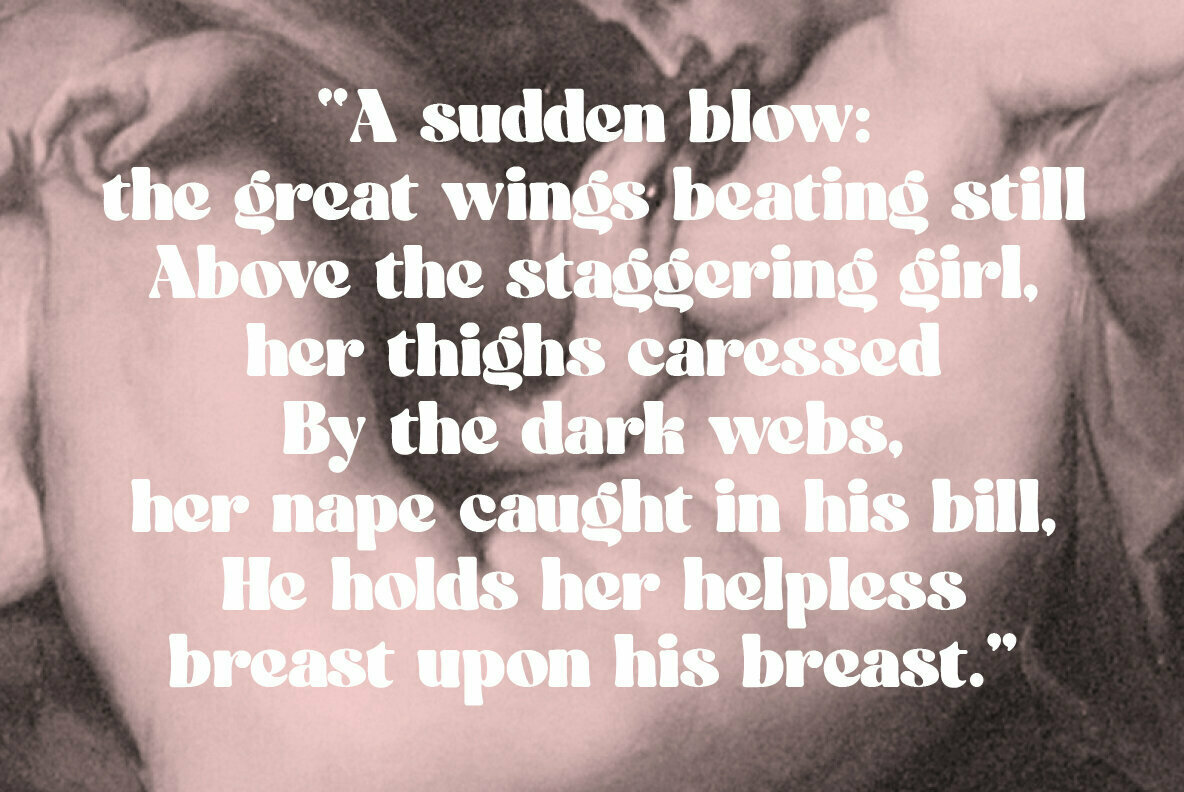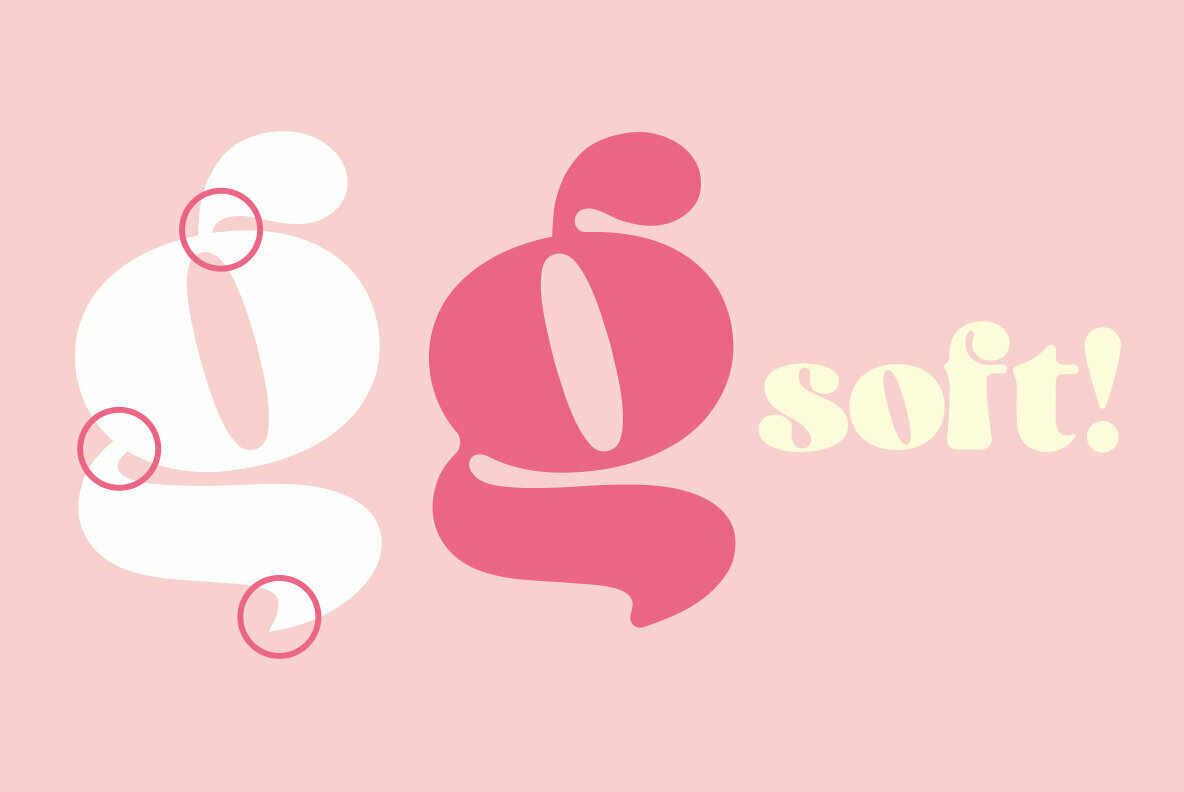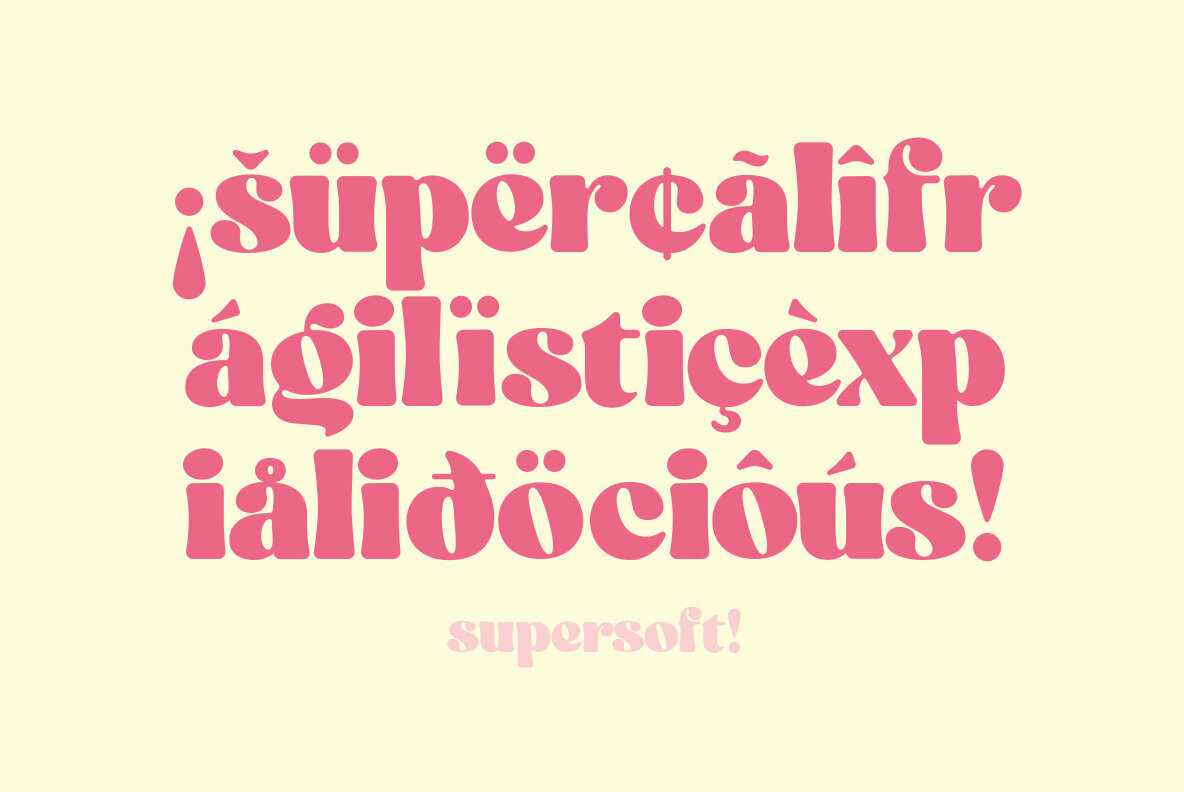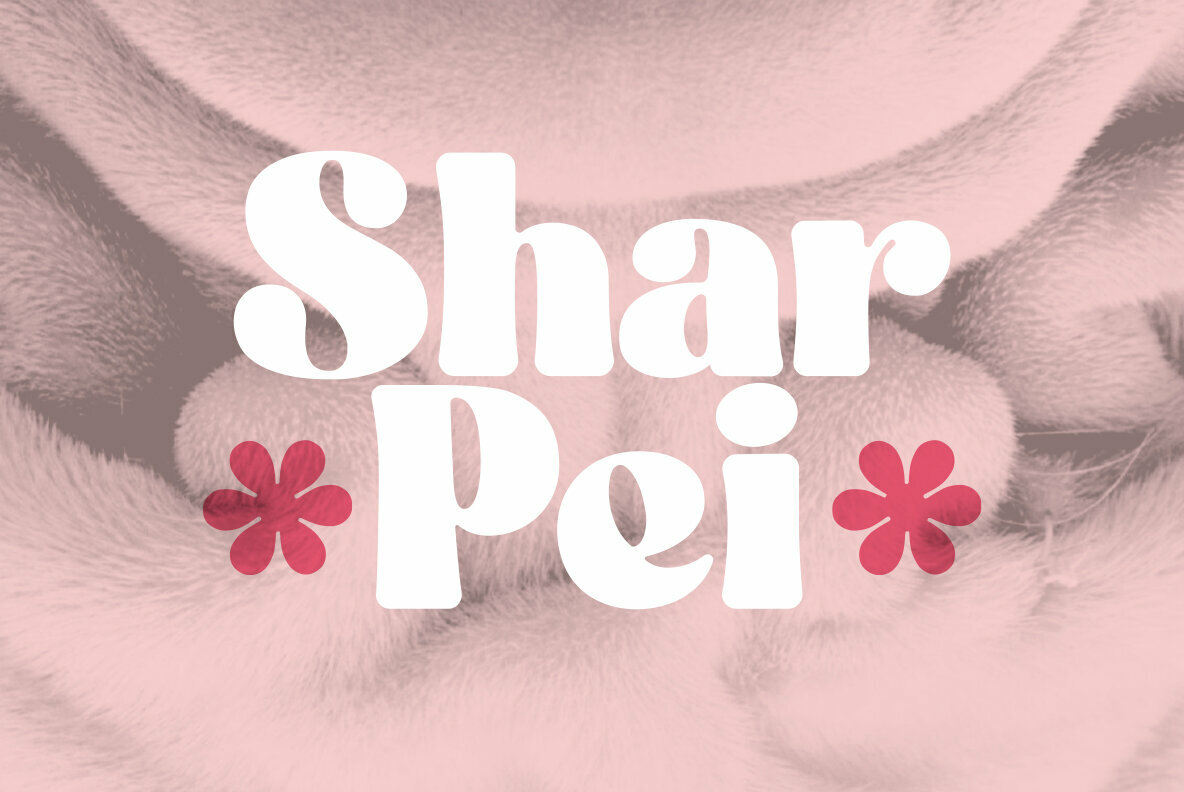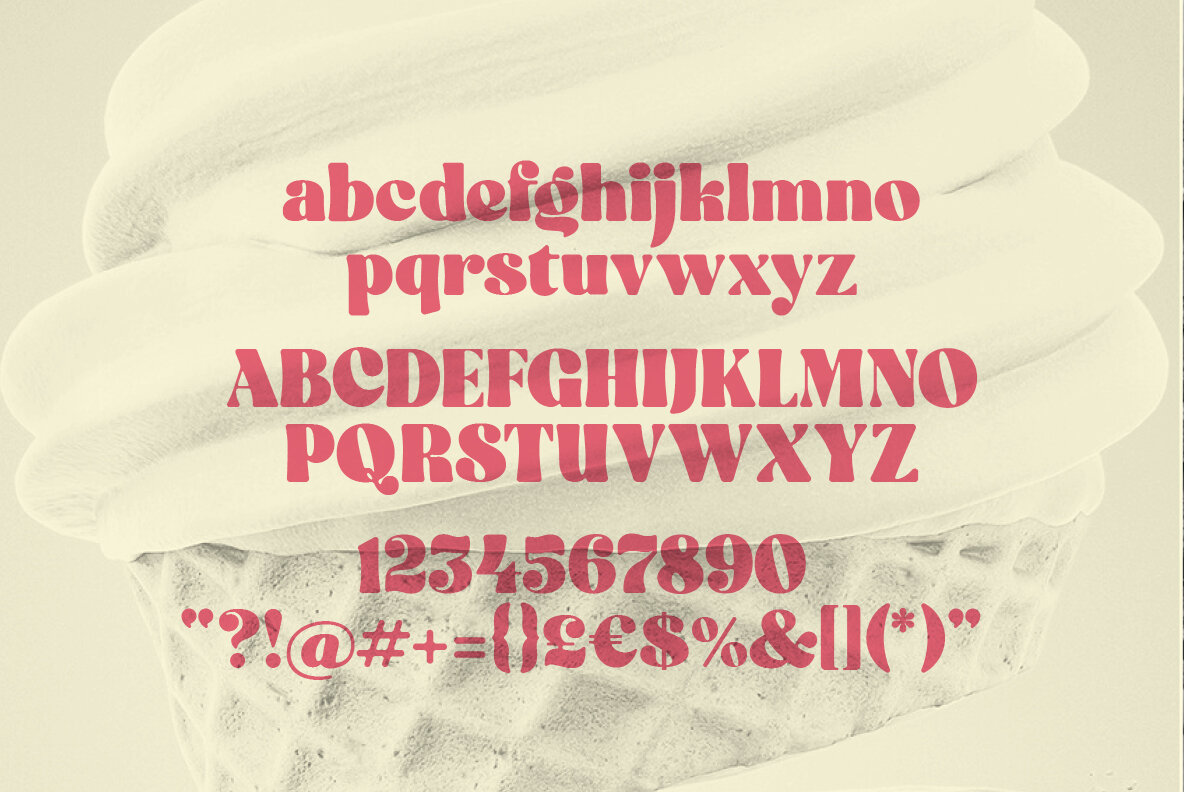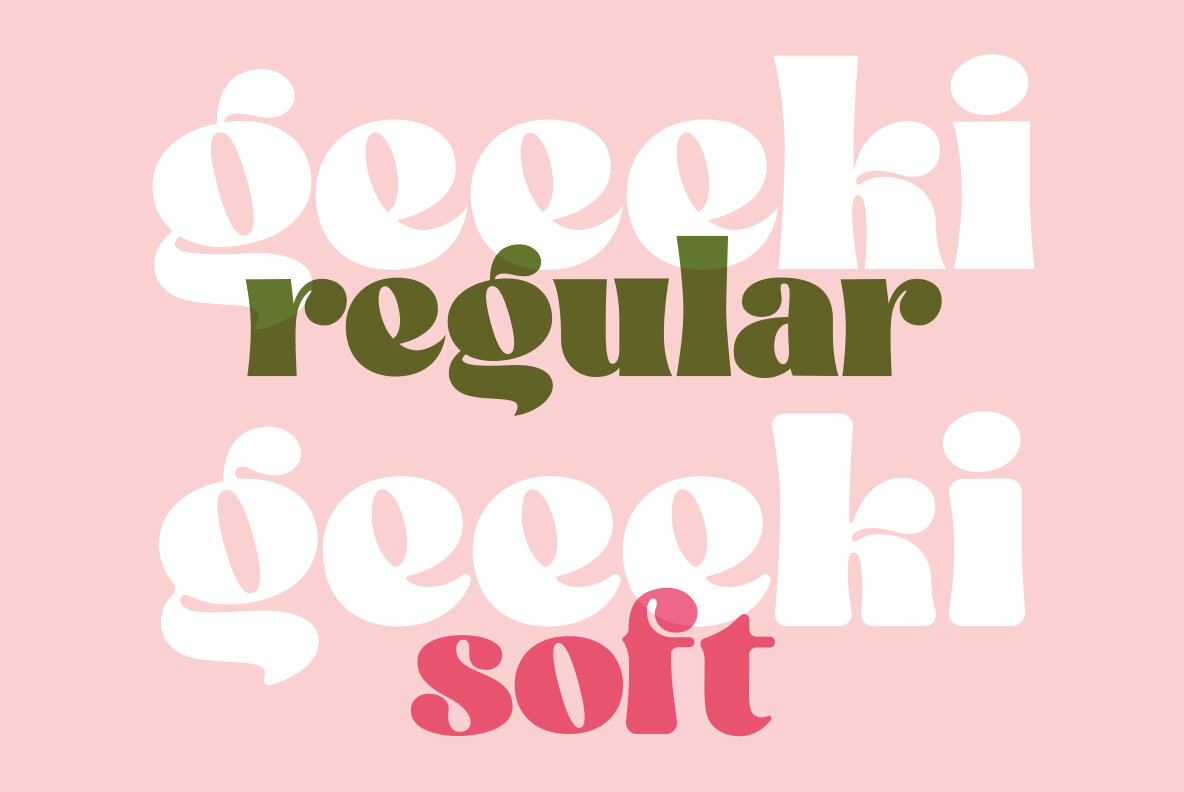
Geeeki Soft Font
Geeeki Soft
Geeeki Soft is a playful semi serif font, it's cute yet nerdy, stylish but dorky. Bold and chunky, it's a unique headline grabber, so it's the perfect match for style magazines, fashion brands and whimsical websites. Find your inner super-geek!
Now available in a rounder, curvier and bouncier soft variant...